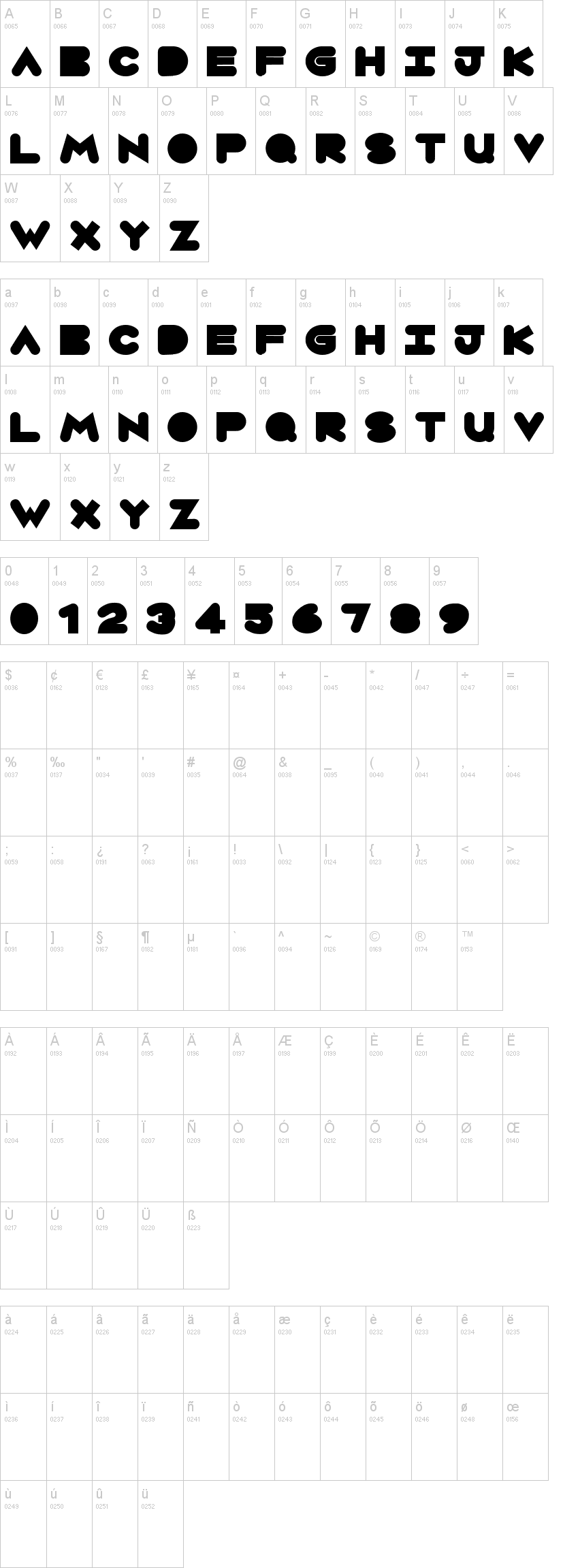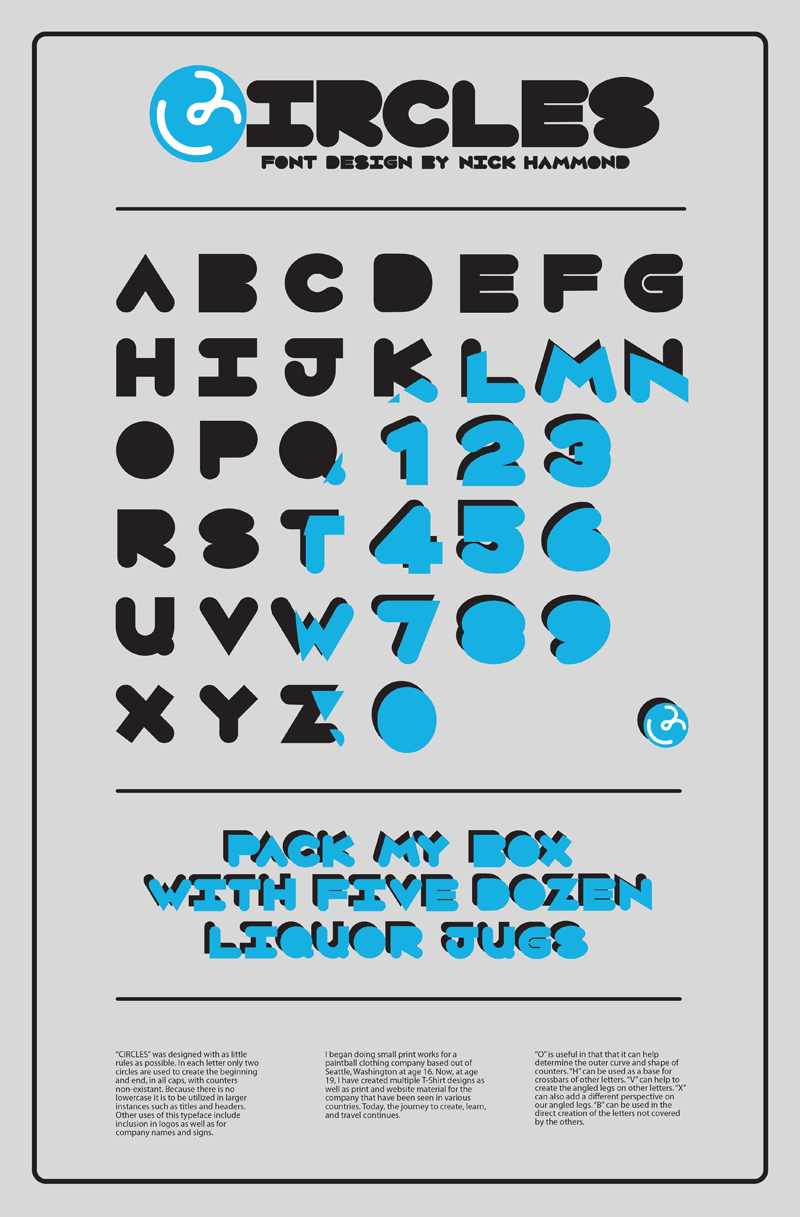
Шрифт Circles
"Circles" was created for inclusion in larger uses such as headers. This font was not intended for body copy. Font has a decently large stroke as well as a futuristic feel.